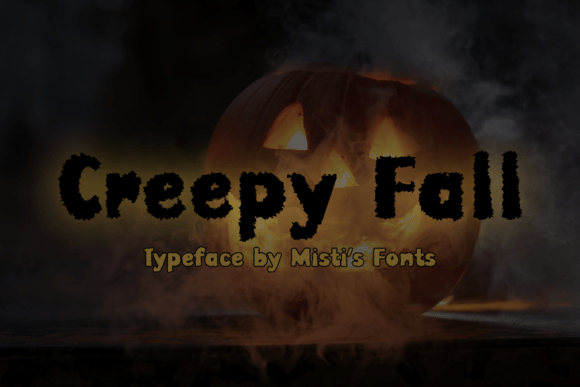
Discover the Spooky Charm of Creepy Fall Font
As a designer, I’ve had my fair share of late nights scrolling through font libraries, searching for that perfect match for a project. But one evening, while working on a Halloween-themed design for a client, I stumbled upon a font that sent shivers down my spine – in the best possible way. That font was Creepy Fall, a textured display font that perfectly captures the essence of spooky autumn nights.
The Creepy Fall Advantage
Creepy Fall is more than just a font – it’s an experience. With its jagged, irregular edges and blotchy, ink-like texture, it mimics the look of creepy shadows creeping through the fog. This font strikes the perfect balance between spooky and playful, making it ideal for Halloween designs that aim to be eerie but not too intense.
What I Love About Creepy Fall
- ✨ Unique Texture: The textured finish gives Creepy Fall a distinctive, hand-crafted feel that’s perfect for creating eye-catching designs.
- ✅ Versatility: Whether you’re designing for digital screens or print, Creepy Fall reads well and looks great against dark or glowing backgrounds.
- 🎃 Halloween Perfection: The soft roundness of the letterforms, combined with its textured finish, gives Creepy Fall a cartoon-horror vibe that’s perfect for children’s Halloween materials.
While Creepy Fall is an amazing font, there are a few things to keep in mind:
- ⚠️ Legibility at Small Sizes: Due to its textured nature, Creepy Fall might not be the best choice for body text or small font sizes.
- 🤔 Limited Formality: The playful, irregular edges of Creepy Fall make it less suitable for formal or professional designs.
The Story Behind Creepy Fall
Creepy Fall was designed with the intention of capturing the magic of Halloween without being too scary. The designer aimed to create a font that would be both spooky and fun, perfect for seasonal designs that appeal to a wide audience. Inspired by old horror movies and haunted attractions, Creepy Fall brings a touch of nostalgia and playfulness to your designs.
| Font Name | Creepy Fall Font |
| Author | Misti |
| What makes Creepy Fall unique? | Its textured, ink-like finish and jagged edges give it a distinctive, spooky charm. |
| Is Creepy Fall suitable for children’s designs? | Absolutely! Its cartoon-horror vibe makes it perfect for kids’ Halloween materials. |
| Can I use Creepy Fall on digital screens? | Yes, Creepy Fall reads well on digital screens, especially against dark or glowing backgrounds. |
Creepy Fall is a versatile and eye-catching font that’s sure to elevate your Halloween designs. Whether you’re a designer, crafter, or creative hobbyist, this font offers endless possibilities for creating spooky yet fun content. So why settle for ordinary fonts when you can add a touch of creepy charm to your projects?